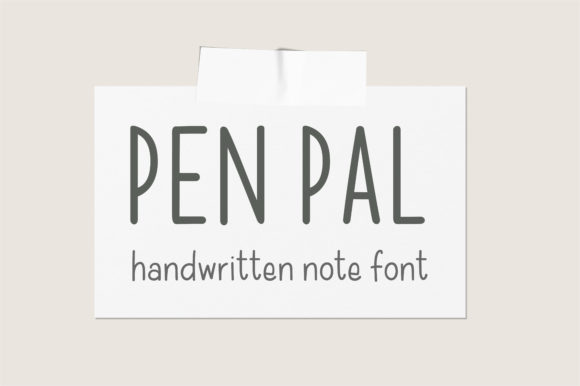
In a digital world saturated with monotonous typography, Pen Pal Font emerges as a beacon of charm and individuality. Inspired by the nostalgic essence of handwritten letters, this captivating script font breathes life and personality into your creative endeavors.
Pen Pal Font is the brainchild of Sunday Nomad, a renowned artist with an eye for intricate details and a passion for creating fonts that tell stories. Each letterform in this font is lovingly crafted, reflecting the natural flow and subtle nuances of human handwriting. The result is a font that feels both authentic and deeply personal, inviting your audience to connect with your message on a deeper level.
With its playful and engaging character, Pen Pal Font is the perfect choice for a wide range of design projects. Whether you're creating product packaging that demands attention, branding projects that exude warmth and authenticity, or magazine covers that promise an immersive reading experience, Pen Pal Font has the power to transform your designs into captivating visual experiences.
Step into the world of Pen Pal Font and discover a realm of endless creative possibilities. Let your imagination run wild as you use this font to craft social media posts that pop, wedding invitations that evoke timeless elegance, or simply to add a touch of personal flair to your written words. With Pen Pal Font, your designs will transcend the ordinary and leave a lasting impression on your audience.
Embrace the allure of Pen Pal Font and unleash your creativity. Let this font be your muse as you embark on a journey of visual storytelling, capturing hearts and minds with every design you create.